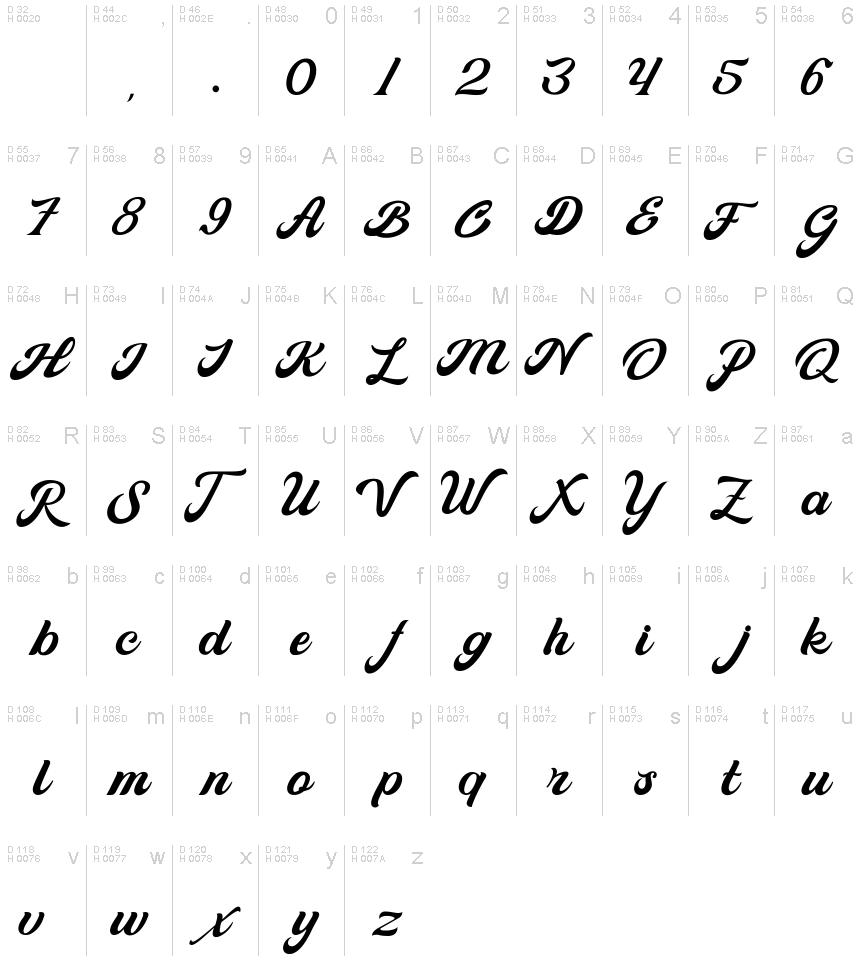
Suitnice retro Regular
Suitnice Retro font, designed by Achmad Yani of Flawless And Co, embodies a captivating blend of nostalgia and elegance in its retro script style. With striking curves and whimsical flourishes, this font exudes personality and charm, making it a standout choice for creative projects. Its bold presence offers a vibrant aesthetic appeal, while the graceful connections between letters create a fluid sense of movement.
Ideal for eye-catching branding, vintage-inspired invitations, or playful advertisements, Suitnice Retro effortlessly infuses energy into any design context. Its unique character makes it perfect for applications where warmth and flair are essential, ensuring that your message not only stands out but also resonates with an audience looking for a touch of retro charm.